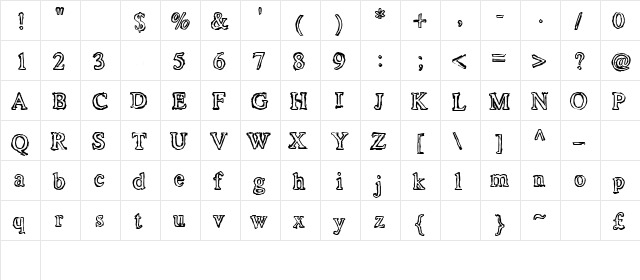
Rough Sheets Outline
Design Context for Rough Sheets Typeface
Rough Sheets embraces imperfection — its rough, textured character adds raw authenticity to designs that want to feel lived-in and unconventional.
Suited to punk-influenced zines, underground music branding, streetwear, and raw, anti-corporate design.
Pro Tip: Pair Rough Sheets with intentionally raw or lo-fi design elements. Fighting against it with overly polished surroundings will undermine its personality.